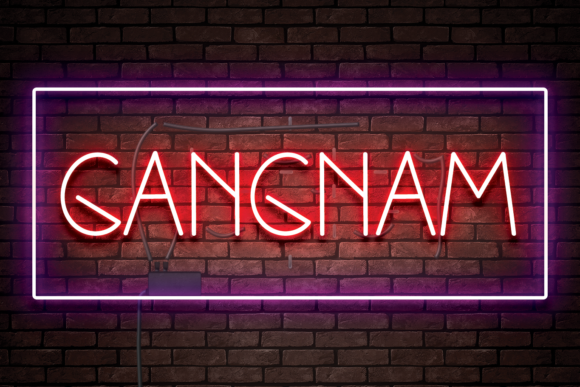
The Perfect Font to Elevate Your Designs
Have you ever stared at a blank canvas, trying to decide on the perfect font to bring your creative vision to life? I know I have. It’s that moment when everything feels stuck, and you need a spark to get those creative juices flowing. For me, it was a particularly challenging project where I needed a font that could effortlessly convey modernity and sophistication.
That’s when I discovered the Gangnam Font – a sleek, tall, and thin sans serif font that instantly elevates any design. Its versatility makes it a valuable addition to any designer’s toolkit. Whether you’re working on a trendy magazine cover, a minimalist logo, or a bold advertising campaign, Gangnam Font is the perfect companion to bring your ideas to life.
Gangnam Font Key Features
• Font Style: Sans-serif, bold and modern design inspired by Korean typography.
• Unique Characteristics: Distinctive bold and thin strokes, with a unique x-height and letter spacing that evoke a modern, urban feel.
Gangnam Font Review
As a designer, I had the chance to work with the Gangnam Font, and here’s my honest review.
The Gangnam Font has a unique and stylish design that can add a touch of modernity to any project. It’s perfect for branding and marketing materials where you want to stand out.
• Highly customizable: The font has a lot of options for customization, making it easy to adjust the look and feel to fit your needs.
• Works well for display text: The font is designed to be eye-catching and readable, making it perfect for headings and titles.
While the Gangnam Font has a lot of great features, it’s not without its limitations.
• Not ideal for body text: The font is a bit too playful for large blocks of text, making it better suited for smaller amounts of text.
• May not be accessible: The font’s unique design may not be readable for users with visual impairments, so be sure to test it with accessibility tools.
The Gangnam Font is a great choice for designers looking for a unique and stylish font to add some personality to their projects. However, it’s not a one-size-fits-all solution, and you’ll want to carefully consider its limitations before using it.
The Gangnam Font is perfect for creating eye-catching titles, headings, and quotes. It’s commonly used in:
• Social media graphics and posts.
• Advertising and marketing materials.
• Music and entertainment-related designs.
Remember to experiment with different font sizes, colors, and styles to get the most out of the Gangnam Font.
Alternatives to “Gangnam Font” for Designers
Pacifico is a beautiful script font that is perfect for creating elegant and luxurious designs. It is ideal for use in invitations, weddings, and other high-end projects. When to use: Luxury, elegance, and sophistication.
Comparison to Gangnam Font: Pacifico has a more refined and sophisticated look compared to Gangnam Font, which has a more playful and casual feel. While Gangnam Font is great for modern and trendy designs, Pacifico is better suited for more formal and high-end projects.
Great Vibes is a modern script font that is perfect for creating fun and energetic designs. It is ideal for use in social media, advertisements, and other projects that require a playful and youthful vibe. When to use: Fun, playful, and youthful designs.
Comparison to Gangnam Font: Great Vibes has a similar playful and modern feel to Gangnam Font, but it is more energetic and dynamic. While Gangnam Font is great for modern designs, Great Vibes is better suited for projects that require a more vibrant and attention-grabbing look.
Dancing Script is a beautiful and elegant script font that is perfect for creating eye-catching and stylish designs. It is ideal for use in fashion, beauty, and other projects that require a touch of sophistication. When to use: Fashion, beauty, and sophistication.
Comparison to Gangnam Font: Dancing Script has a more elegant and sophisticated look compared to Gangnam Font, which has a more playful and casual feel. While Gangnam Font is great for modern and trendy designs, Dancing Script is better suited for projects that require a more refined and high-end look.